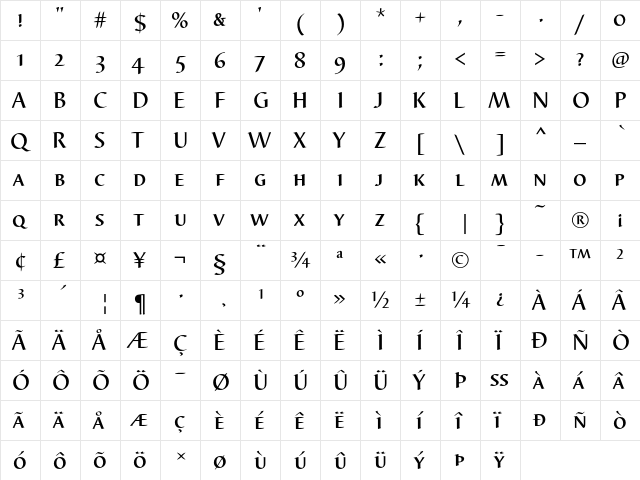
Barbedor SC T Medium Font Preview
Barbedor SC T Medium
Design Context for Barbedor SC T Typeface
Barbedor SC T is a composed and adaptable typeface that performs quietly and consistently across a wide range of design contexts.